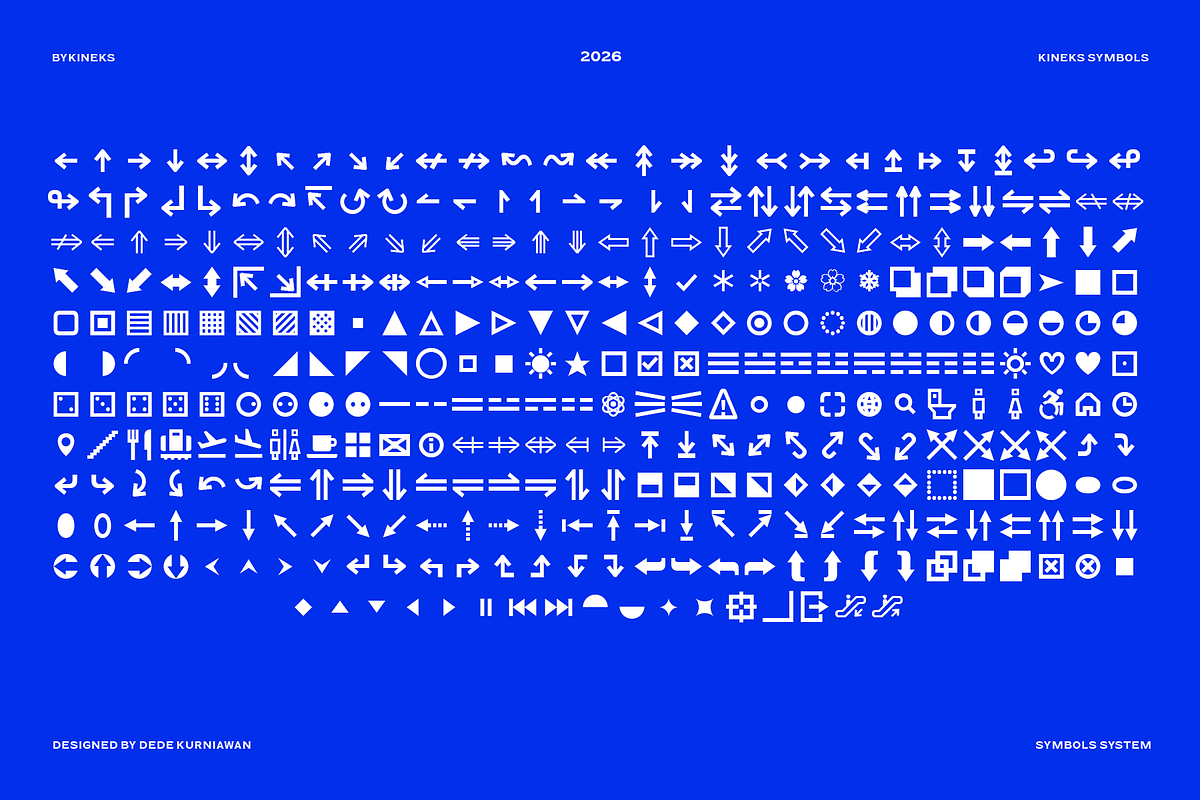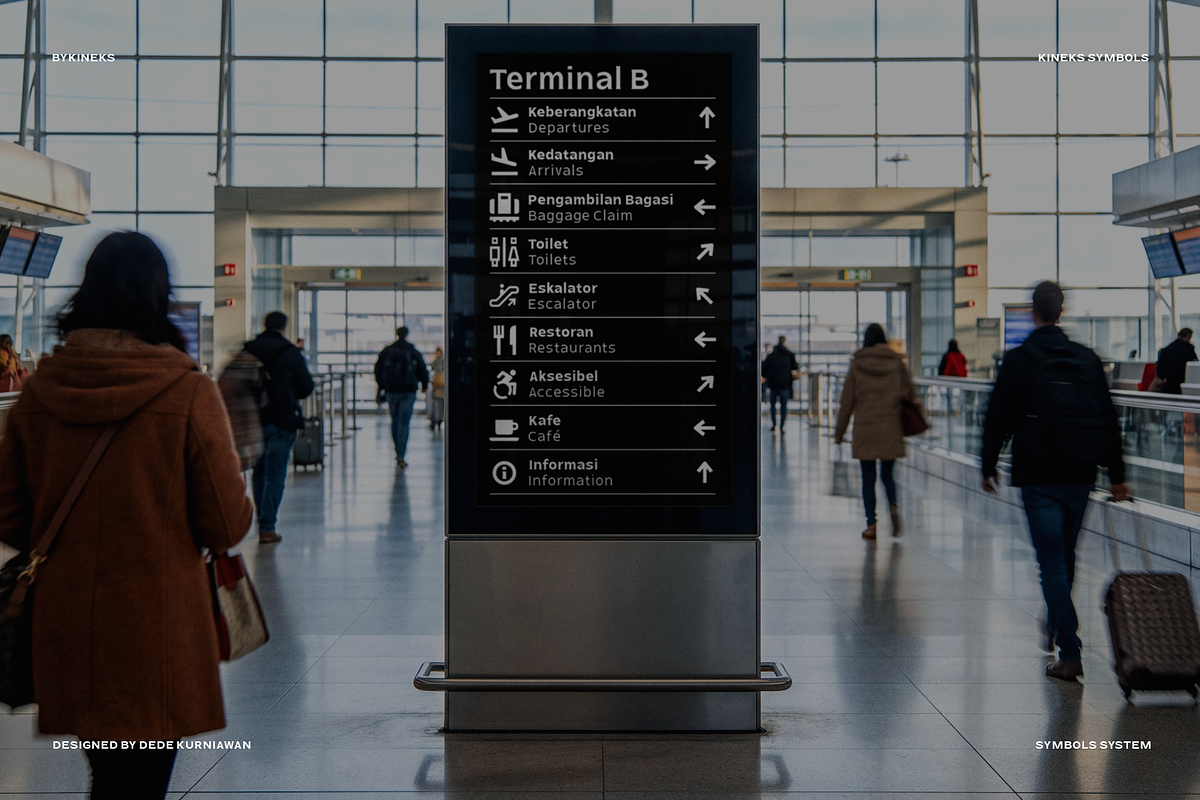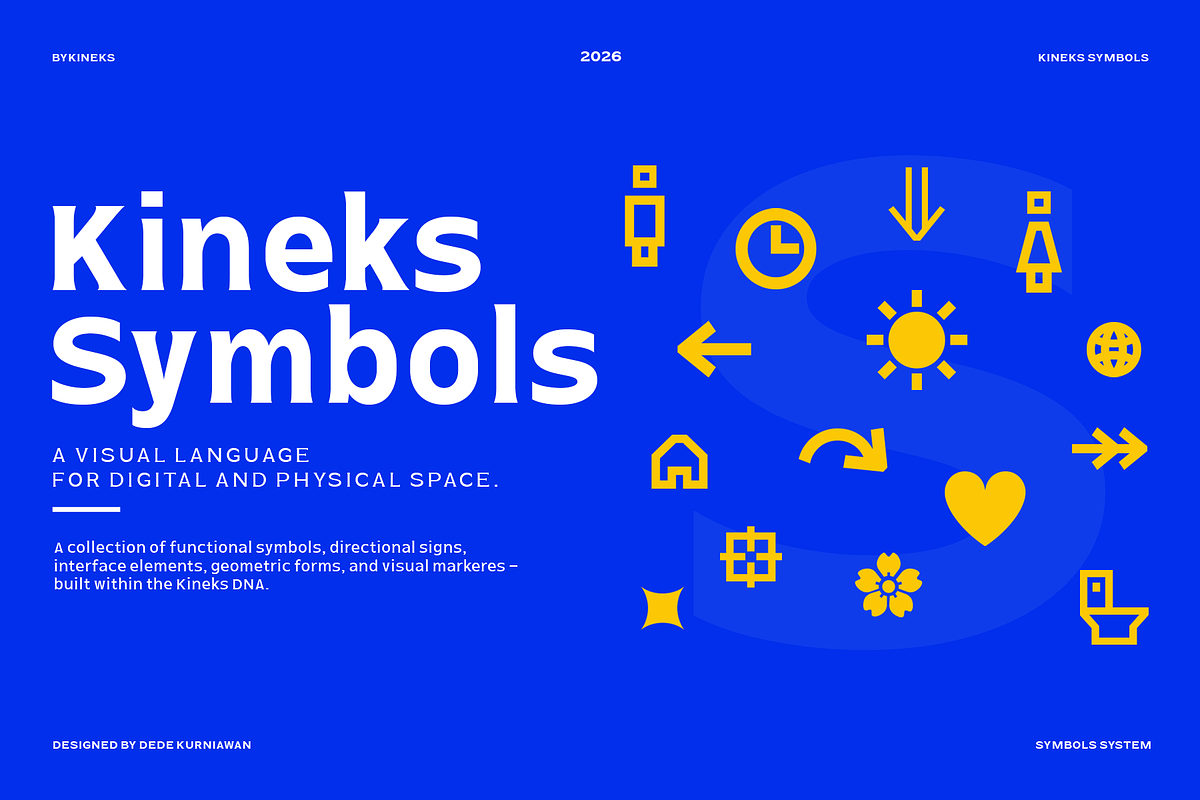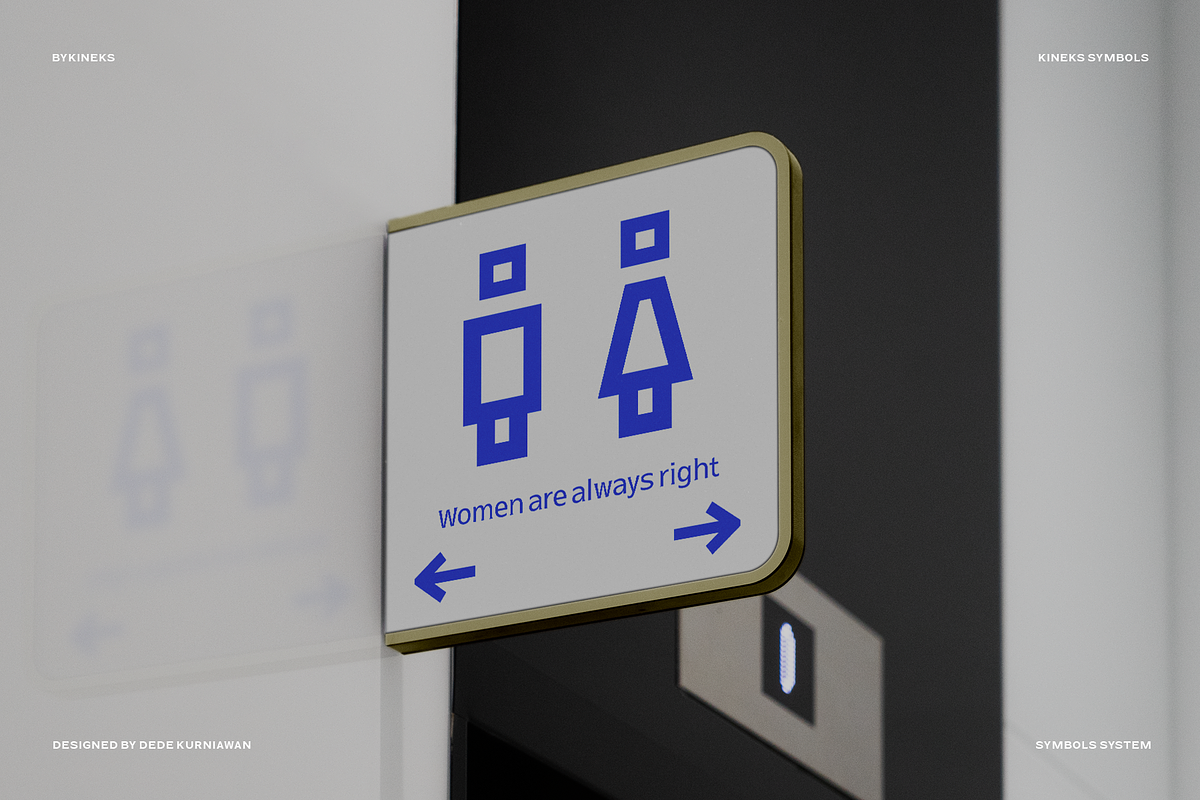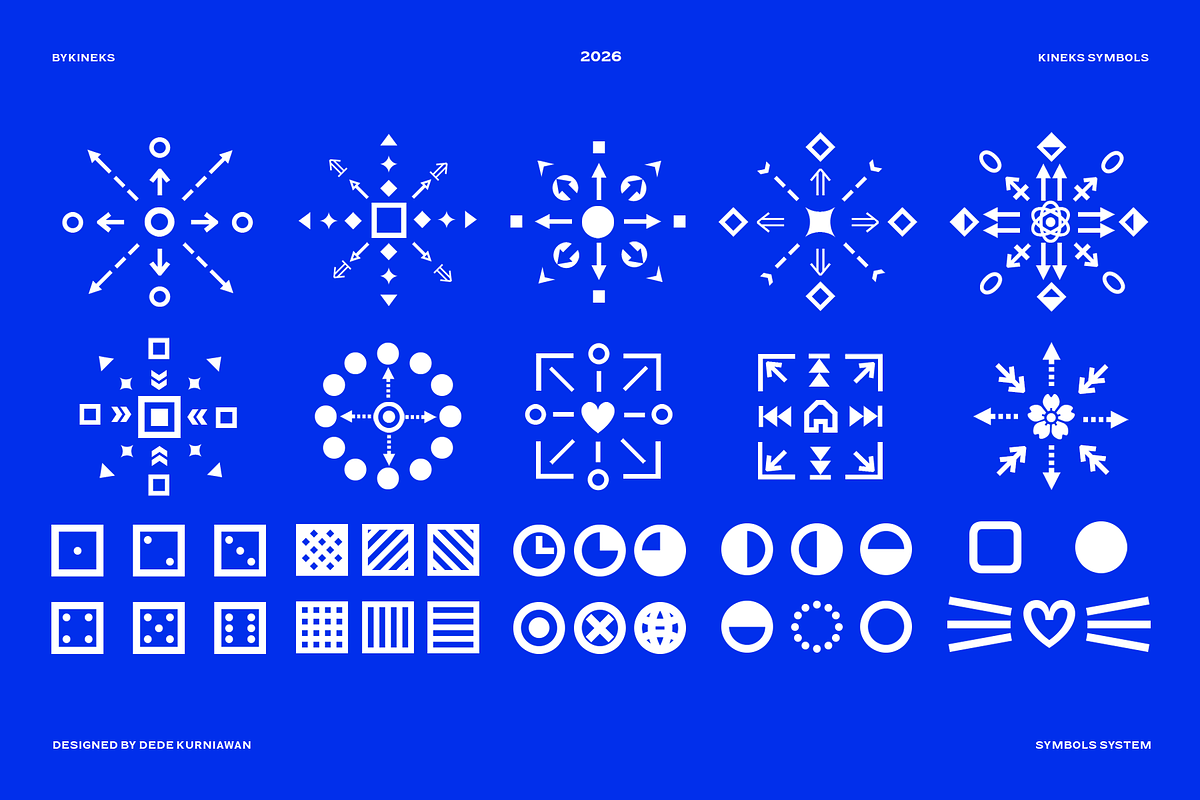
Kineks Symbol | Symbols Typeface
Kineks Symbols is a curated collection of functional symbols designed for digital and physical spaces. Built within the Kineks design language, it brings together directional signs, interface elements, wayfinding symbols, transportation, facilities, safety markers, geometric forms, and everyday visual signs.
Kineks Symbols is designed to work across signage, maps, interfaces, presentations, branding, information graphics, and other visual communication systems.
Rather than trying to cover every possible symbol, Kineks Symbols focuses on a carefully selected set of essential and versatile forms. Each symbol is designed with a consistent visual character, proportion, and rhythm, allowing different categories to work together as one cohesive system.
Kineks Symbols — a visual language for digital and physical space.